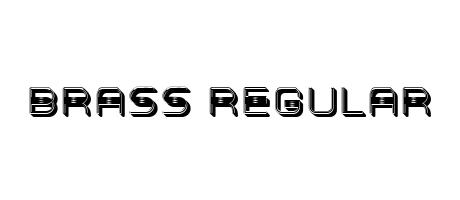
Brass
Brass Regular: A bold, sans-serif typeface with a distinct, extruded 3D effect. Each letter appears to be chiseled from a solid block, giving it a weighty, almost metallic feel. The consistent thickness and sharp corners create a modern, industrial aesthetic. Its strong presence suggests power and reliability.